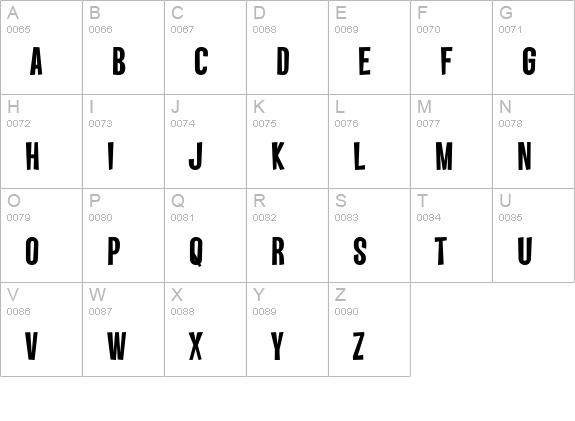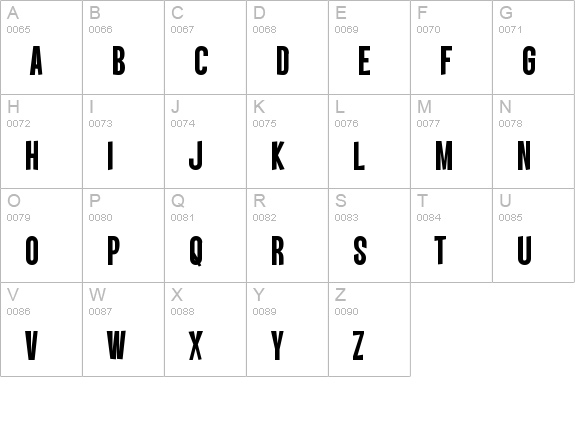
Vanishing Boy BTN Bold is a strong, high-contrast variant in the Vanishing typeface family \xE2\x80\x94 well suited to headlines, attention-grabbing titles, and strong calls-to-action.
Vanishing Boy BTN Bold font is a captivating and bold typeface that exudes confidence and modernity. Its strong and sturdy letterforms make a powerful statement, ideal for headlines, titles, and branding projects that demand attention. This font possesses a unique ability to effortlessly merge elegance with an edgy aesthetic, making it a versatile choice for various design applications. The thick strokes and sharp angles of Vanishing Boy BTN Bold create a sense of dynamism and energy, ensuring that your message is delivered with impact. With its generous x-height and clear legibility, Vanishing Boy BTN Bold ensures that your text remains readable even at smaller sizes. This makes it perfect for body copy in print materials such as magazines, brochures, and posters. One of the standout features of Vanishing Boy BTN Bold is that it is freely available to download at FontsMarket.com. This means that you can easily access and utilize this exceptional font for your personal and commercial projects without any monetary constraints. The convenience of obtaining this font for free adds incredible value to its already remarkable qualities. Whether you are a professional designer or an enthusiast, Vanishing Boy BTN Bold font will undoubtedly elevate your creative endeavors. Its bold and captivating nature, combined with its availability as a free download, makes it an essential addition to your font library. Embrace the power and versatility of Vanishing Boy BTN Bold font and let your designs speak volumes.